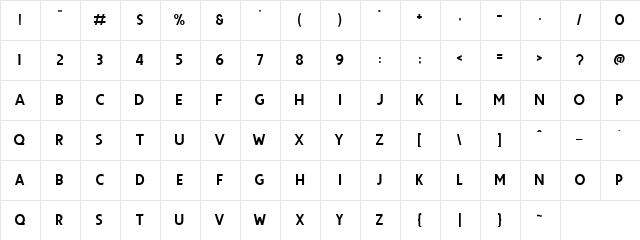
Premier Sans Regular Free Font
Premier Sans Regular
Foundry: Twicolabs Fontdation
Designer: Twicolabs Fontdation
Design Context for Premier Sans
Premier Sans is a composed and adaptable typeface that performs quietly and consistently across a wide range of design contexts.